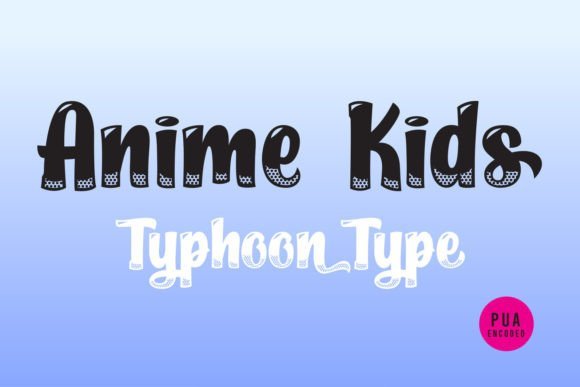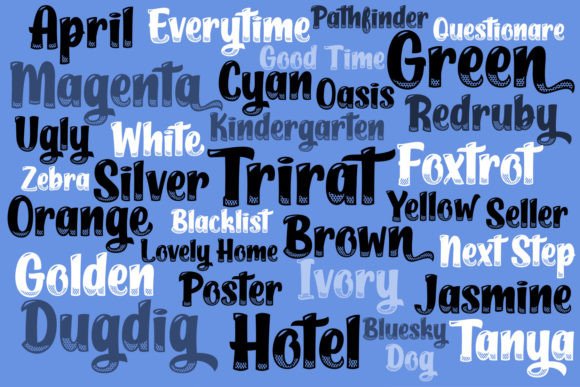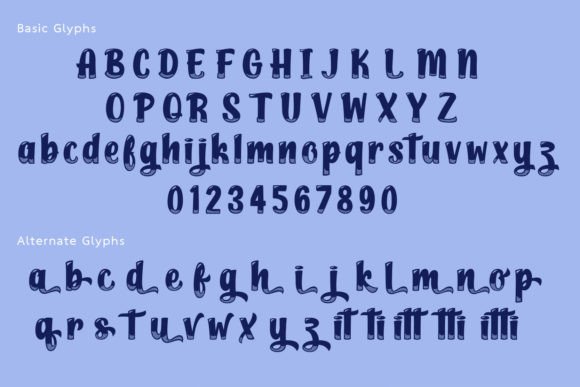
The Perfect Font for Bringing Anime to Life
Have you ever stumbled upon an anime poster or commercial and couldn’t help but feel a rush of excitement? The vibrant colors, dynamic movements, and playful energy all come together to create an unforgettable experience. And it’s not just the animation that makes anime so captivating – it’s also the fonts used to bring the characters and stories to life. That’s where the Anime Kids Font comes in, designed to capture the essence of anime and transport your audience to a world of fun and excitement.
| 📌 Product Name | Anime Kids Font |
| 👤 Author | Typhoon Type™ – Suthi Srisopha |
This remarkable font is more than just a visual representation of anime; it’s a powerful tool for designers looking to add a touch of youthfulness and playfulness to their work. With its unique pop art style and dynamic color gradients, the Anime Kids Font is the perfect choice for any project that needs to stand out from the crowd.
Anime Kids Font Key Features
- Font Family: Anime Kids Font is a unique, hand-drawn font designed to resemble Japanese anime and manga styles.
- Character Set: The font includes a comprehensive set of characters, including uppercase and lowercase letters, numbers, and special characters, making it suitable for various applications.
- Unique Characteristics: The font’s hand-drawn style and exaggerated characters give it a playful and whimsical feel, making it perfect for children’s books, comics, and other creative projects.
Anime Kids Font Review
First off, I want to say that Anime Kids Font is a fun and playful font that’s perfect for projects with a younger vibe. It’s got a very distinct anime-inspired look that’s sure to grab attention. ✨ The font is also highly customizable, which is a big plus in my book.
One thing that really stands out about Anime Kids Font is its versatility. It works well for both digital and print projects, from posters to social media graphics. ✨ The font is also surprisingly legible, even at smaller font sizes.
Now, let’s talk about some of the limitations. ⚠️ One thing that I’m not a huge fan of is the font’s lack of consistency. Some of the characters feel a bit wonky or uneven, which can be distracting. ⚠️ Additionally, the font’s bold and italic styles aren’t always perfectly aligned, which can be a bit of a pain to work with.
Overall, I’d say that Anime Kids Font is a solid choice for projects that need a fun and playful vibe. While it’s not perfect, it’s a great option for designers who want to add some personality to their work. Just be aware of its limitations, and you’ll be golden.
Pros:
- Fun and playful anime-inspired design
- Versatile for digital and print projects
- Legible at smaller font sizes
Cons:
- Lack of consistency in some characters
- Bold and italic styles not always perfectly aligned
The Anime Kids Font is perfect for creating playful and colorful designs, such as:
Children’s book covers and illustrations
Kids’ party invitations and decorations
Animated GIFs and social media graphics
Remember to experiment with different font sizes, colors, and styles to get the most out of this fun and quirky font!